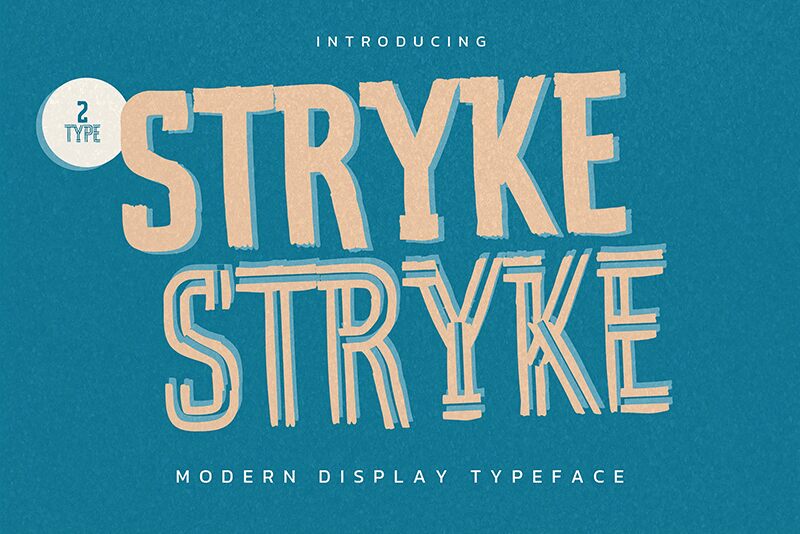
Stryke
Stryke emerges as a modern display typeface from the creative minds at Gassstype, infusing your projects with its distinctively creative style and dramatic movement. This condensed font boasts a textured finish that speaks to its casual, swift strokes, embodying authenticity and uniqueness in every character. Ideal for an array of applications-whether it's crafting striking labels, compelling posters or engaging branding materials-Stryke stands out with its versatility and the ability to inject a touch of modernity into any design.
Its suitability spans from packaging that demands attention to greeting cards that convey heartfelt messages, websites that aim for memorable impressions to photography overlays adding depth to visuals. Stryke is not just a font but a dynamic tool for designers seeking to create projects that are both authentic and impactful.
Dive into the natural look of Stryke and let your creative endeavors be as bold and expressive as this one-of-a-kind typeface.